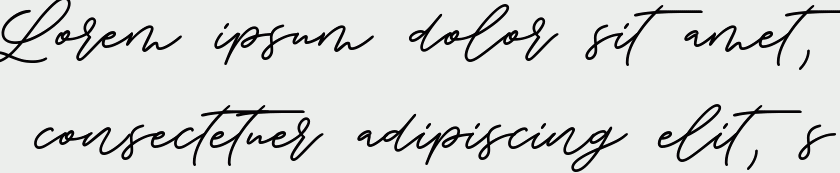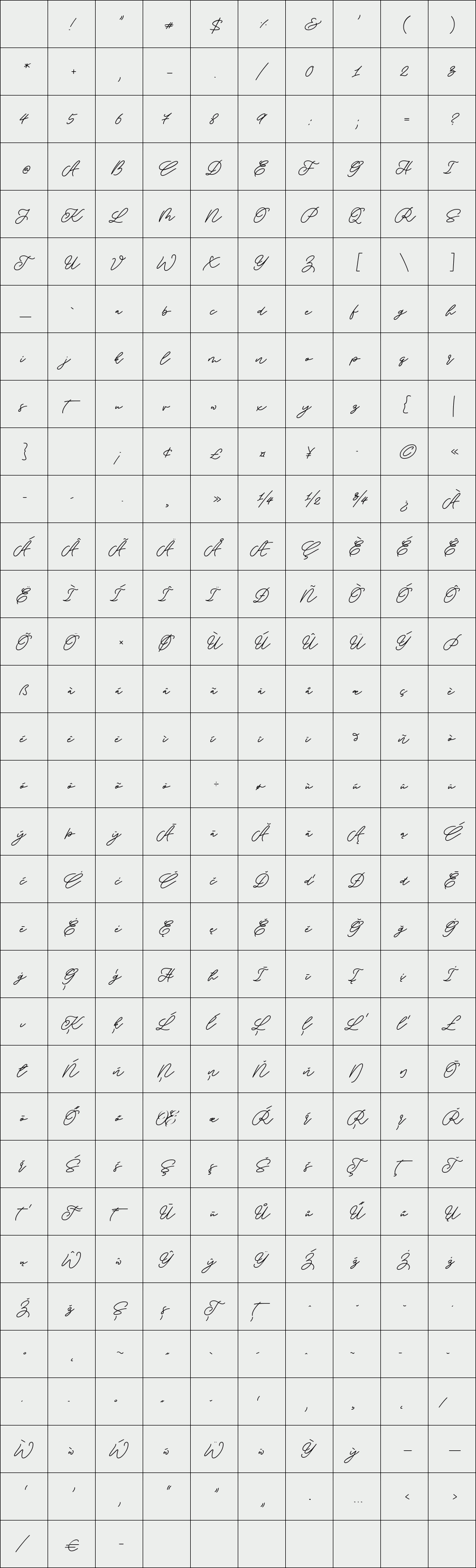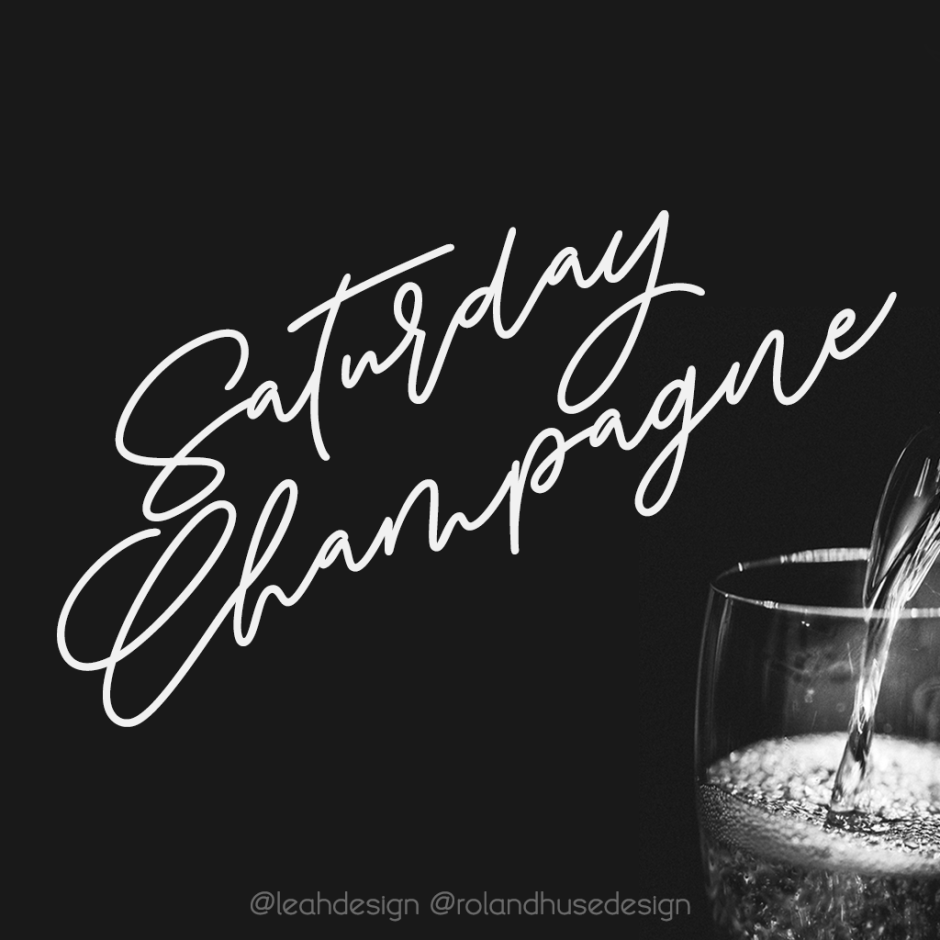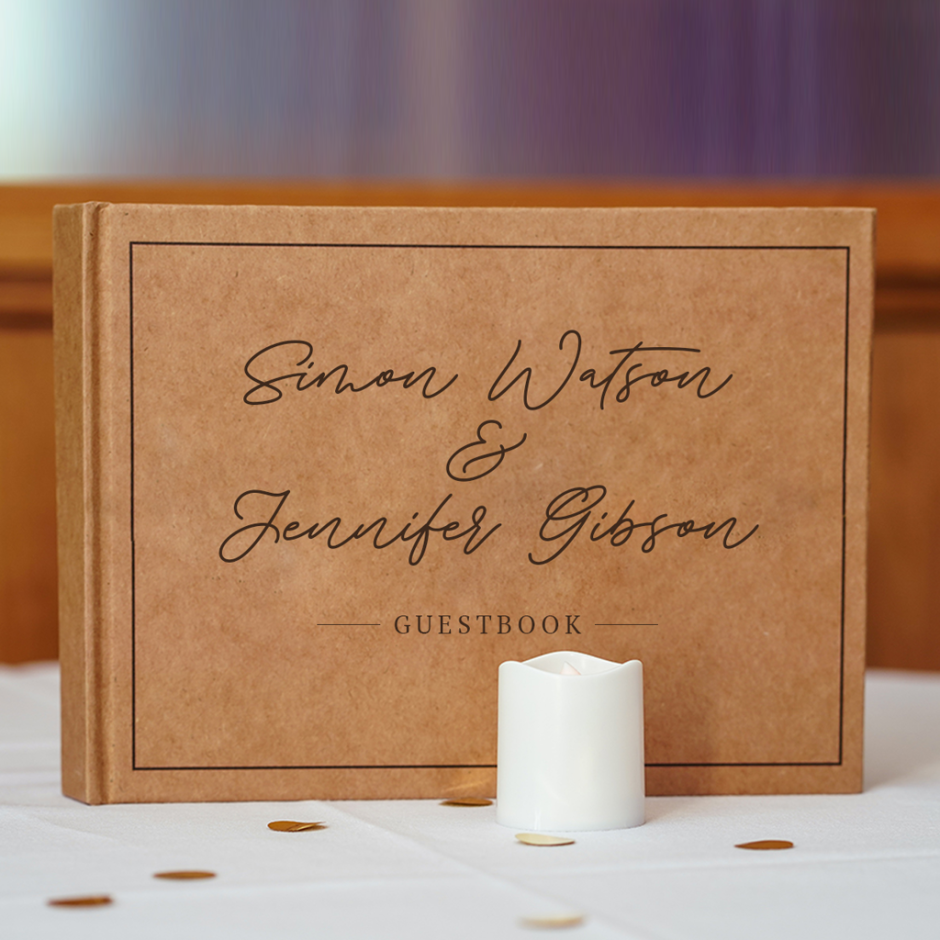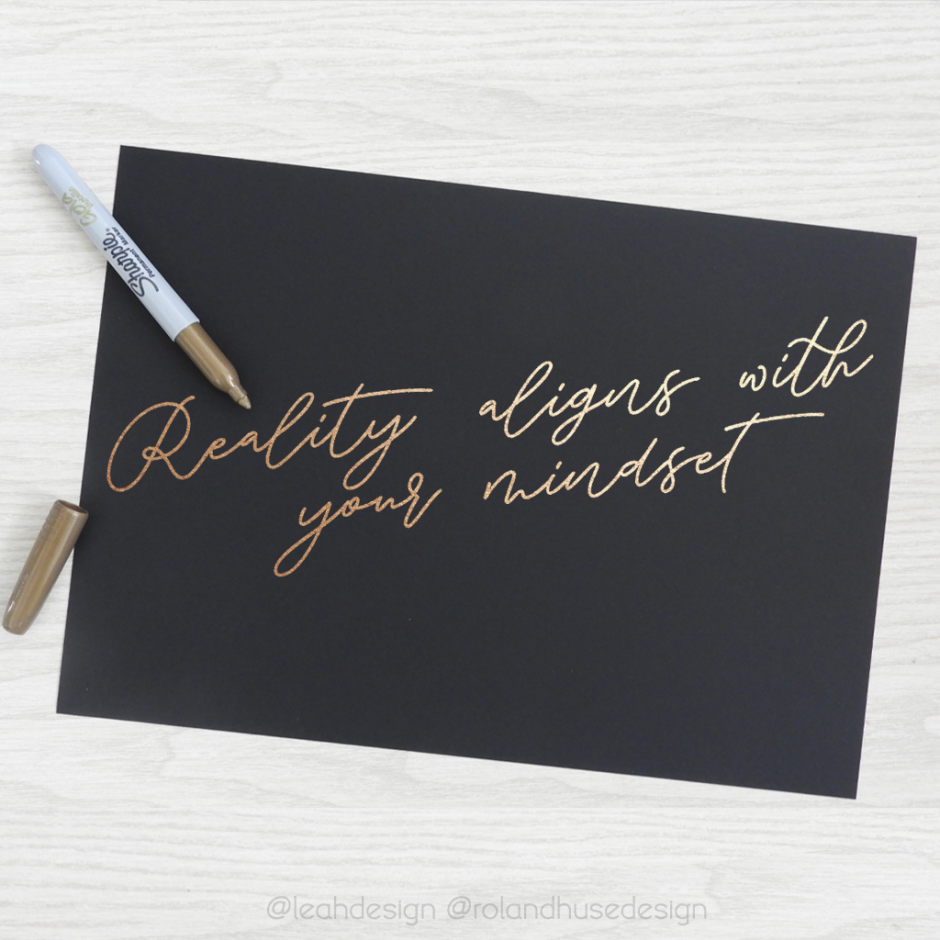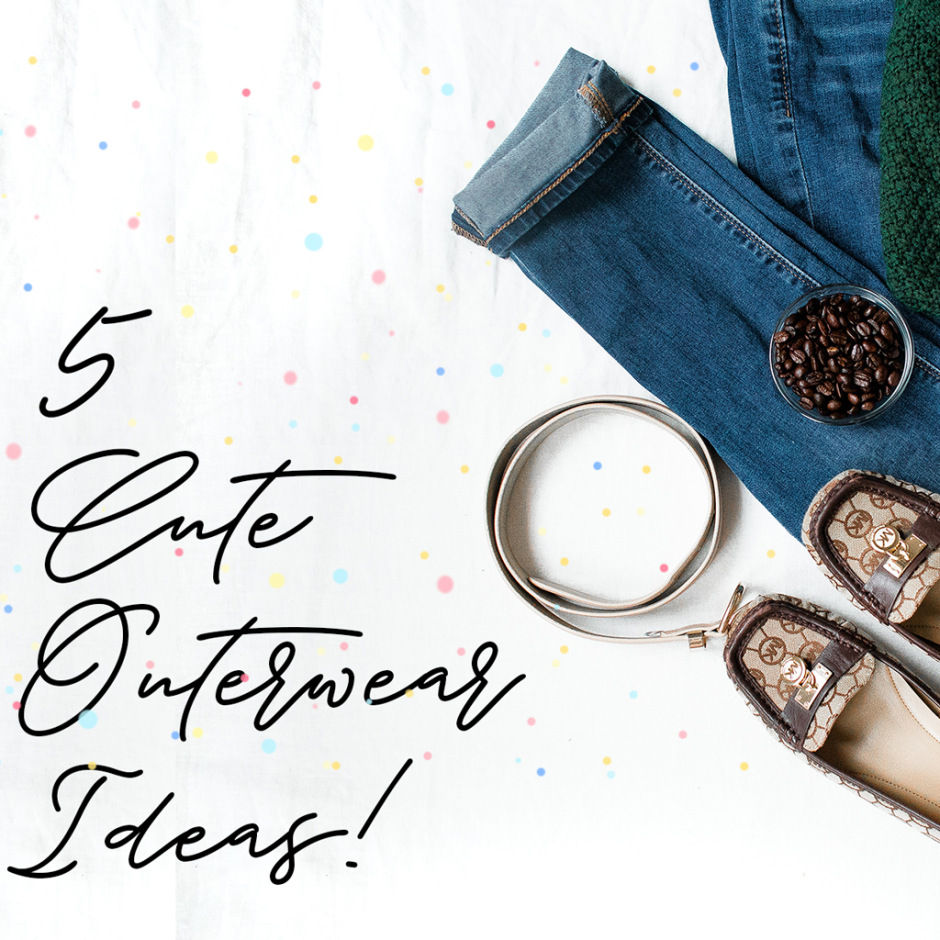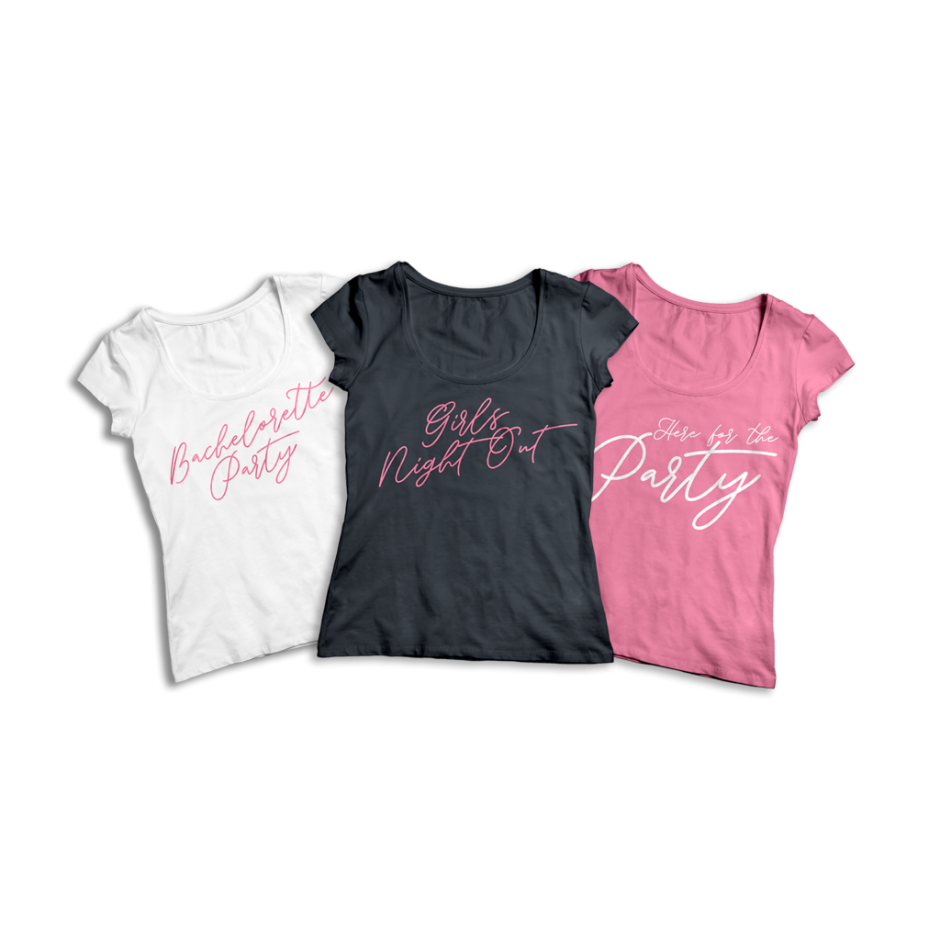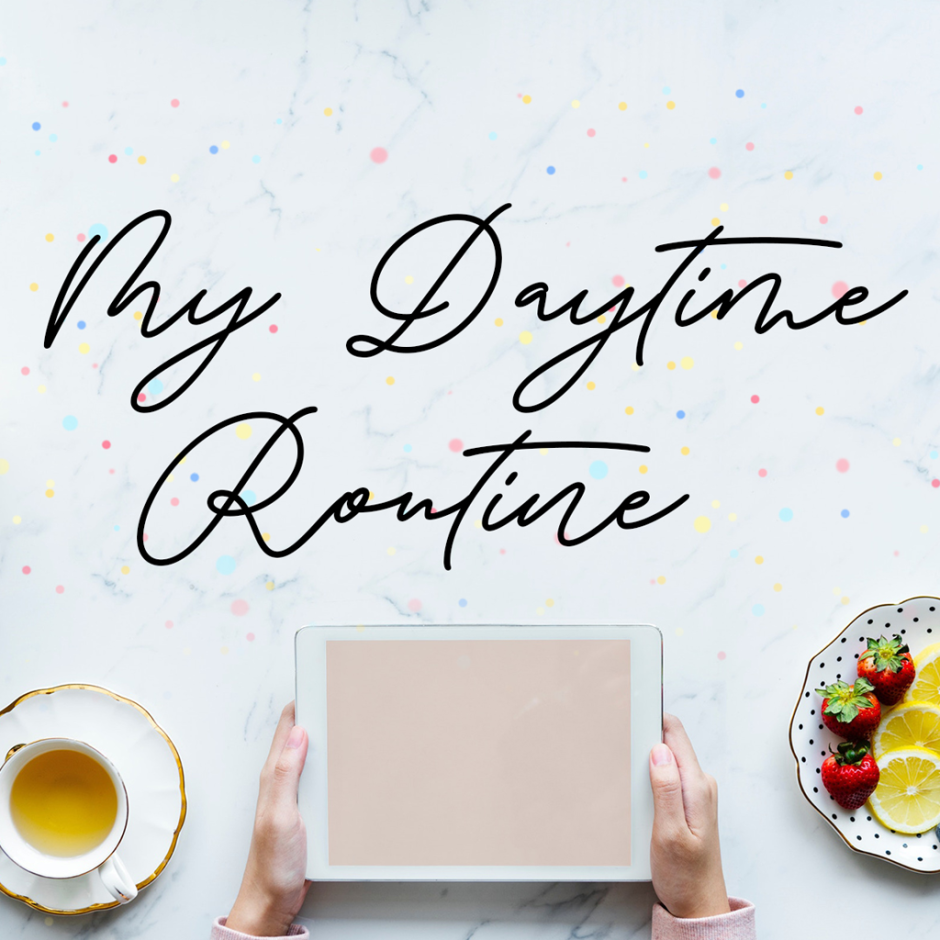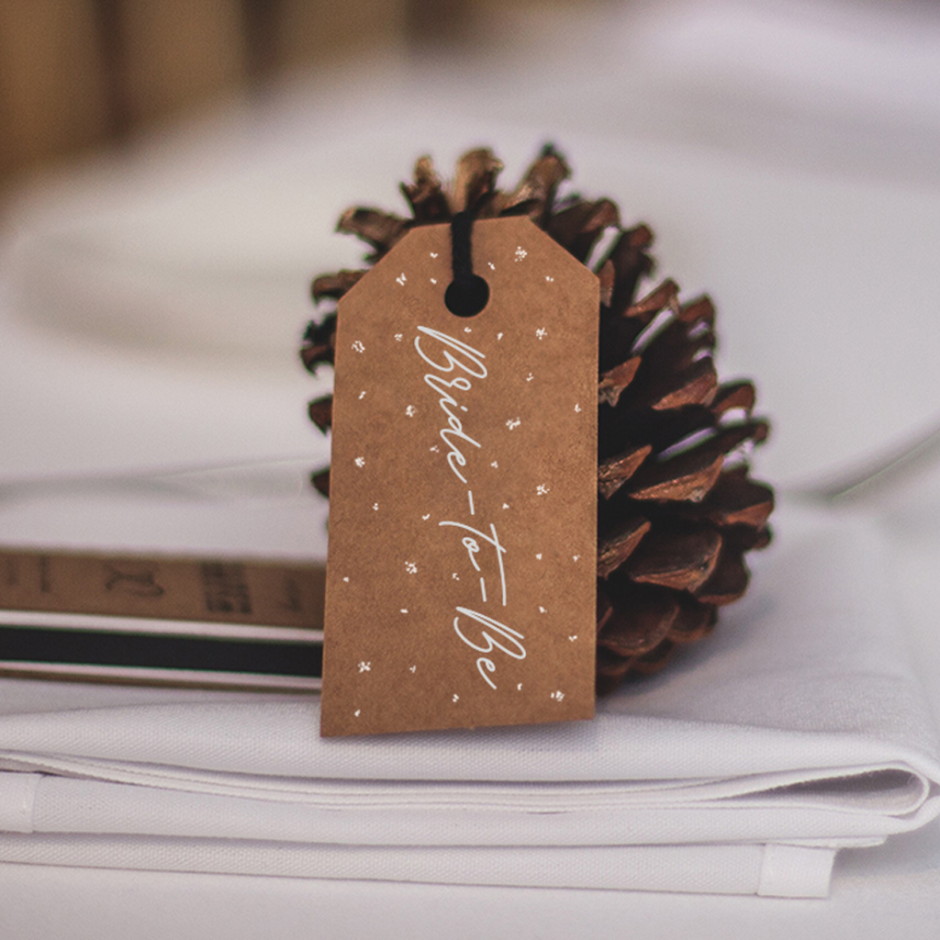
Saturday Champagne
SATURDAY CHAMPAGNE is a monoline modern calligraphy script. Perfect for titles, headings and logotypes for blogs, ads, quote prints, home decor, book title, invitation, birthday, custom product, lifestyle imagery (like quotes and stuff).
This font is written by the amazing hand letterer and fellow artist of mine, Leah Chong, and is a collaboration project.
The character set contains Western and Eastern European accents and extra characters, symbols and the following open type features :
Ligatures: ff ll oo rr th tt ty Finals: b c d l g p y z
Designer: Leah Chong